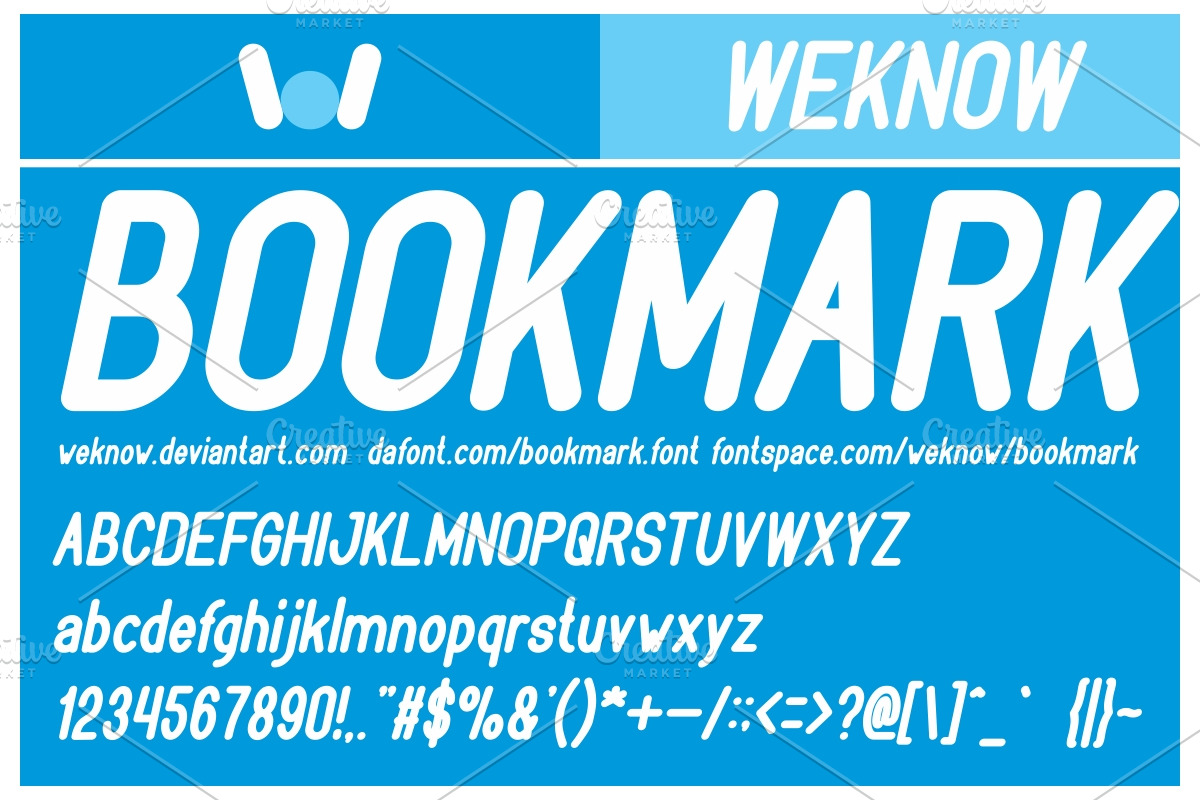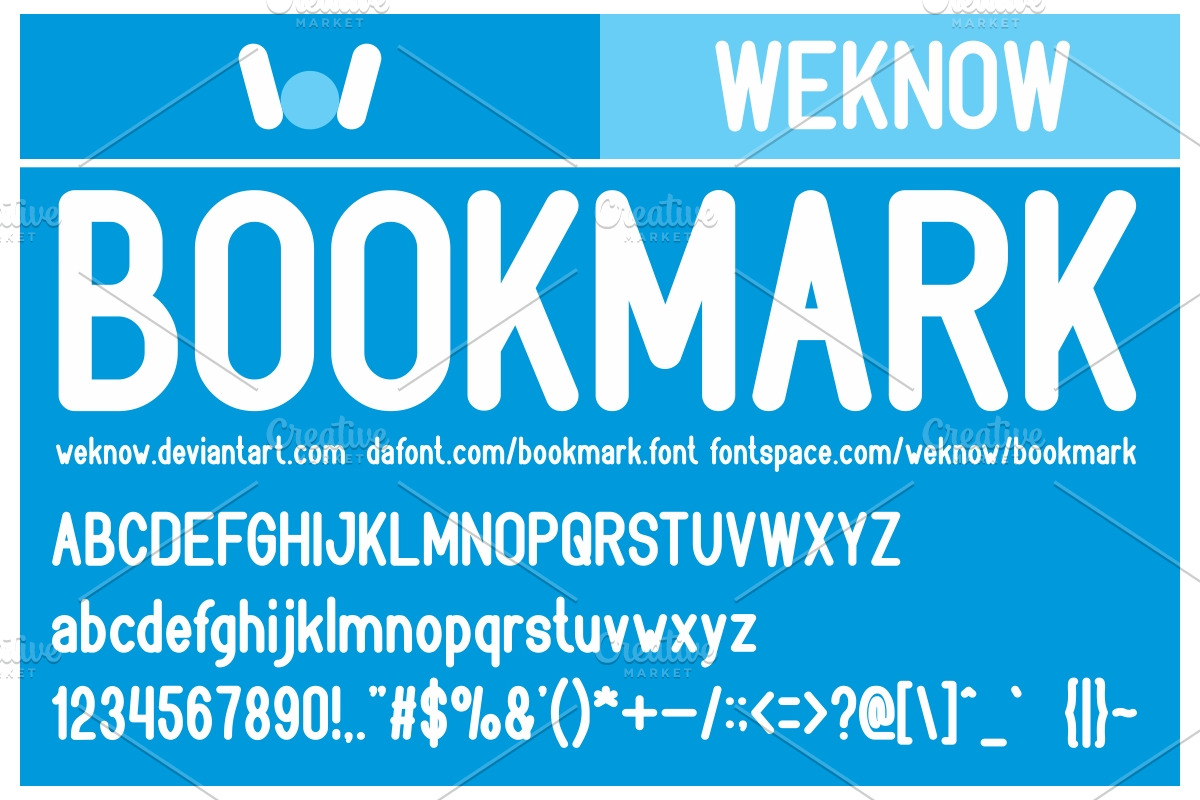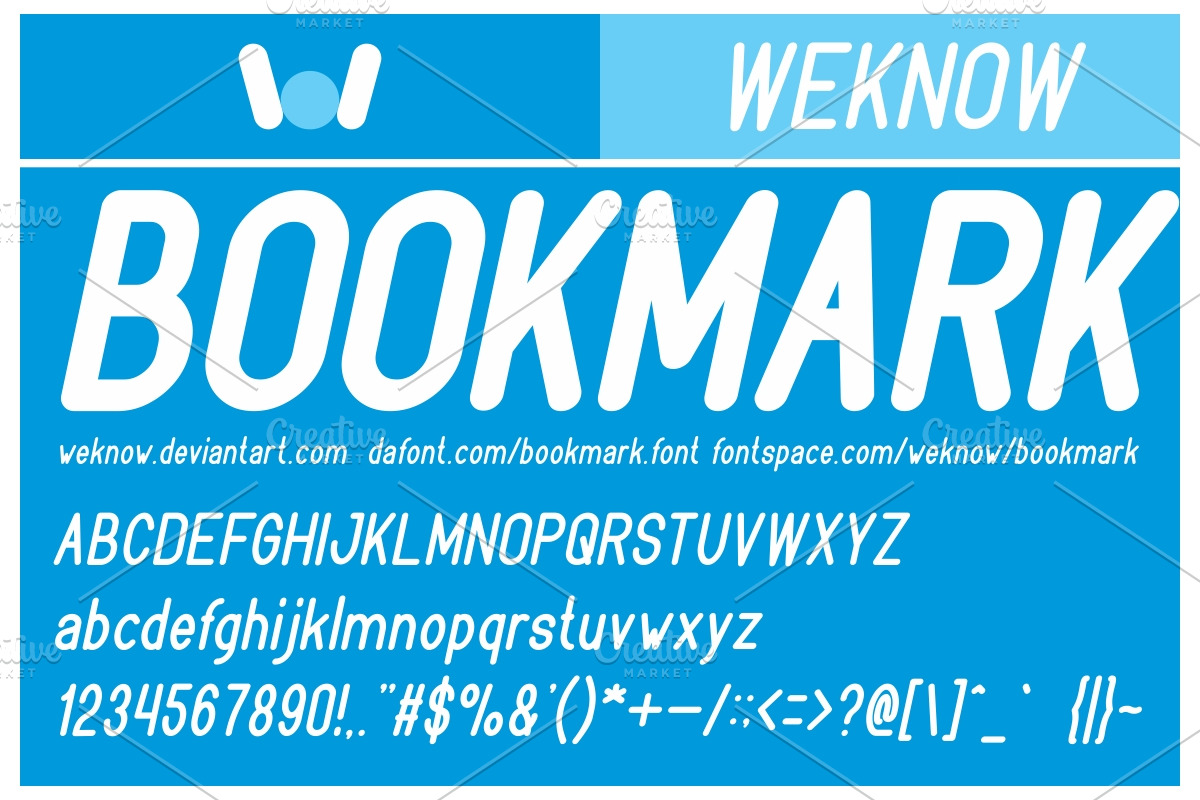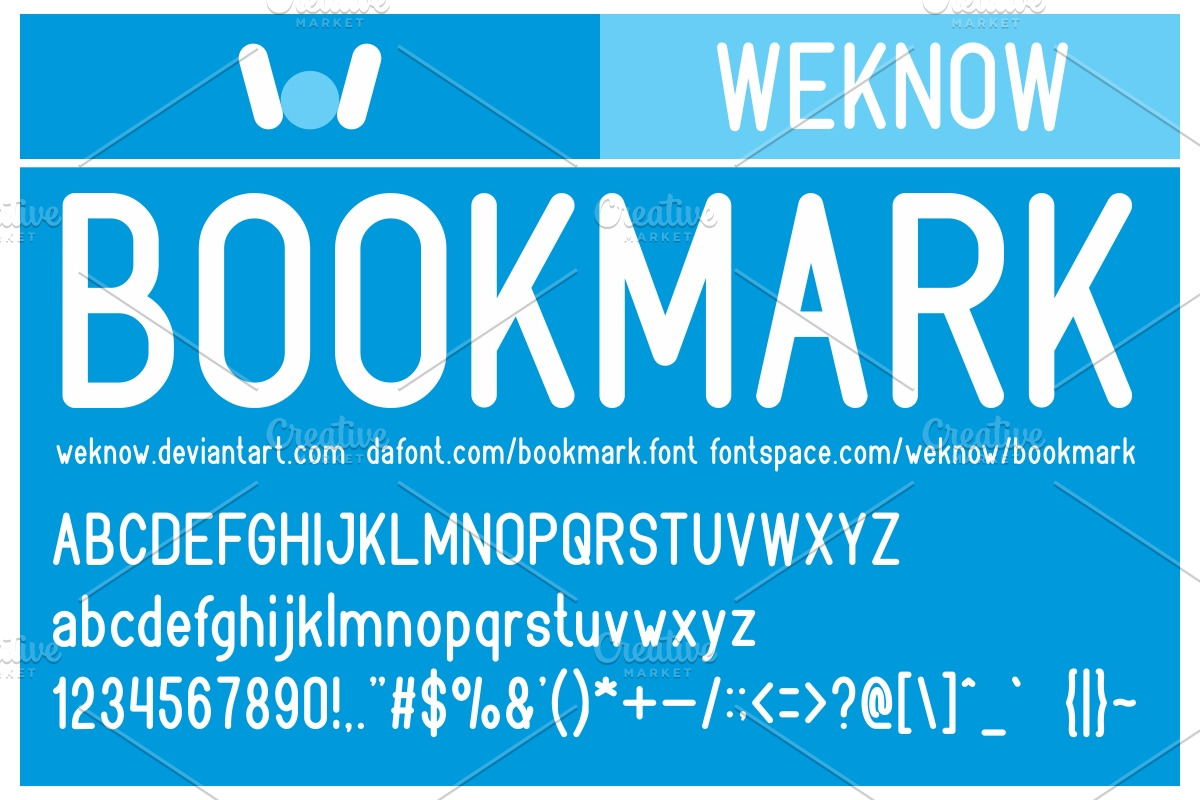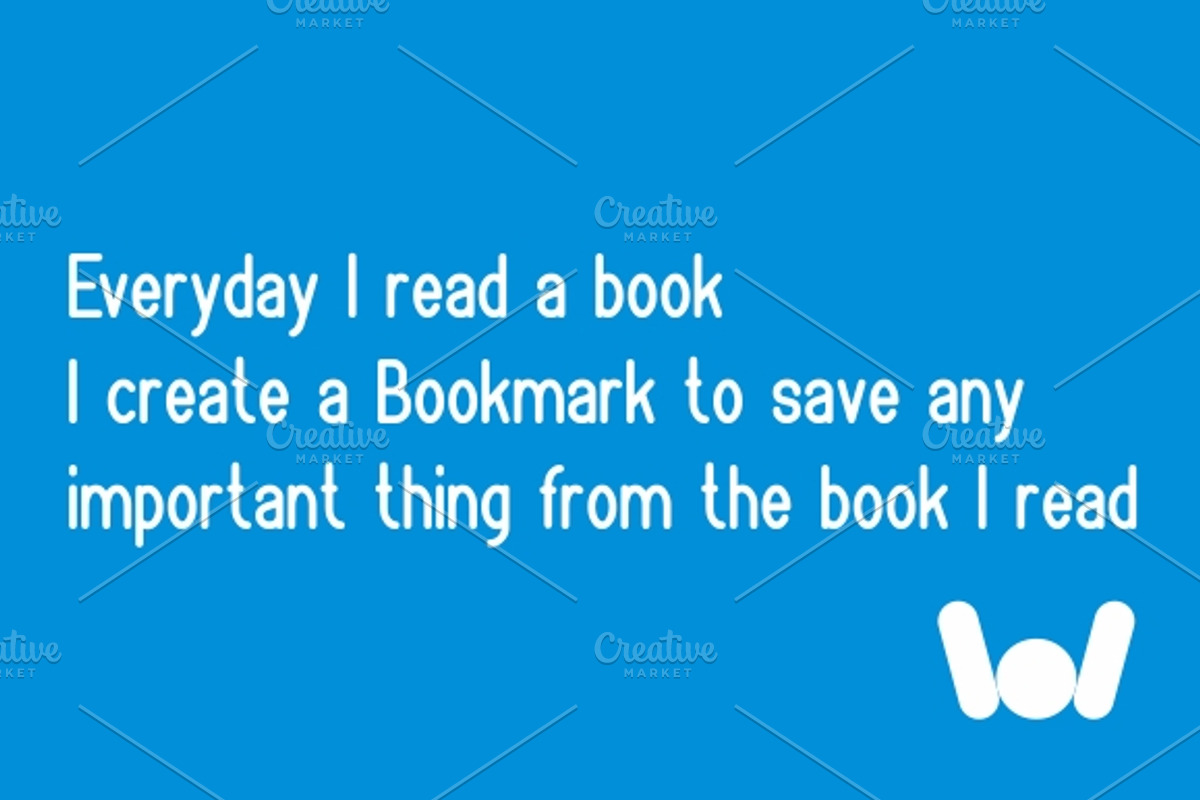
bookmark font
bookmark font by weknow is a font selected for branding, posters, packaging, typography.
Why bookmark font is worth a look
bookmark font by weknow fits naturally into Branding, posters, packaging, typography.